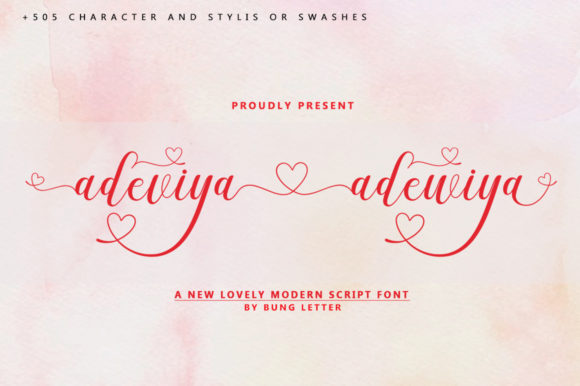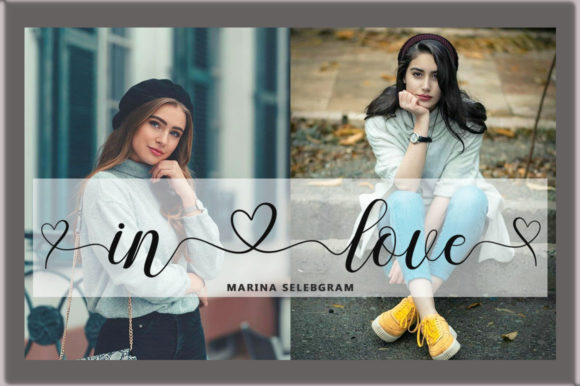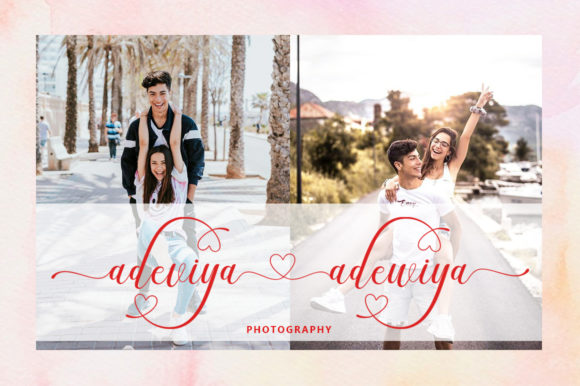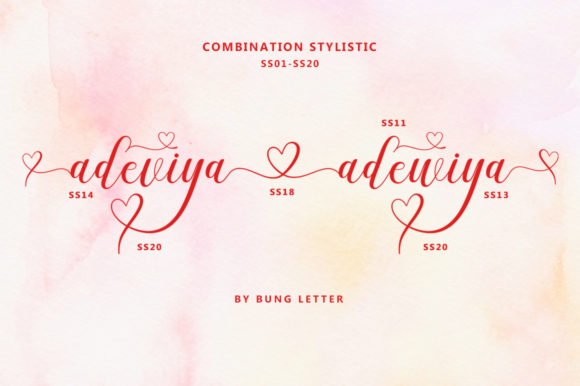
Adeviya Adewiya Font
About the Adeviya Adewiya Font
Explore the possibilities with Adeviya Adewiya Font, a font that offers both beauty and functionality. Adeviya Adewiya is an enchanting handwritten font. This versatile script font has a wide spectrum of applications ranging from greeting cards to headlines and is guaranteed to add a romantic feel to your next project.
Its romantic, flowing style makes Adeviya Adewiya ideal for projects requiring a touch of elegance and whimsy, such as wedding invitations, branding for beauty products, or short, impactful headlines. It shines in applications where legibility is less crucial than aesthetic impact; however, its script nature makes it less suitable for body text or UI elements where readability is paramount. Avoid using it for lengthy paragraphs or dense information.
The overall personality of Adeviya Adewiya is romantic and elegant, but with a touch of playfulness. Its delicate swashes and flowing forms convey a sense of sophistication and charm, making it a versatile choice for projects that benefit from a handwritten, yet refined aesthetic.
Adeviya Adewiya Font Example